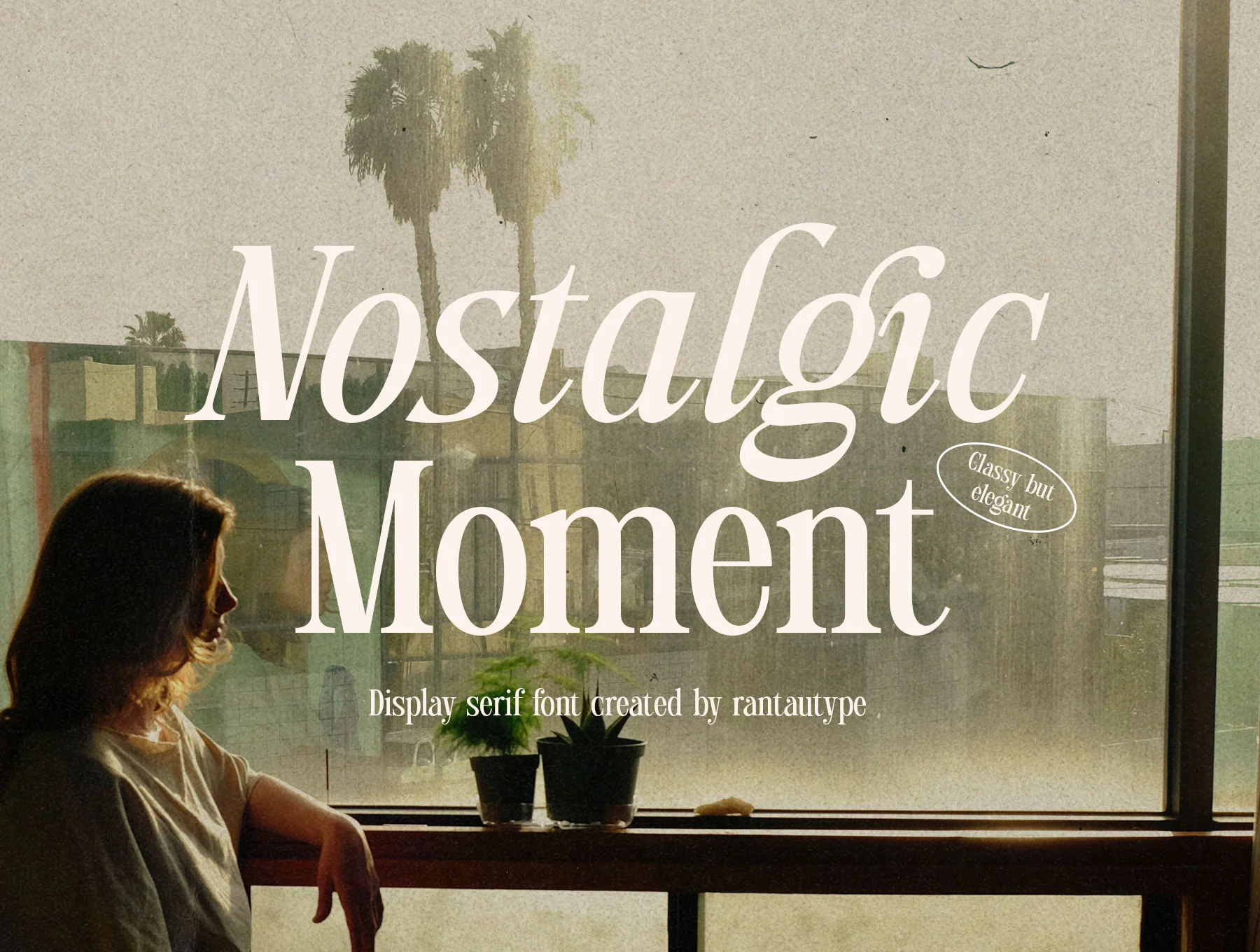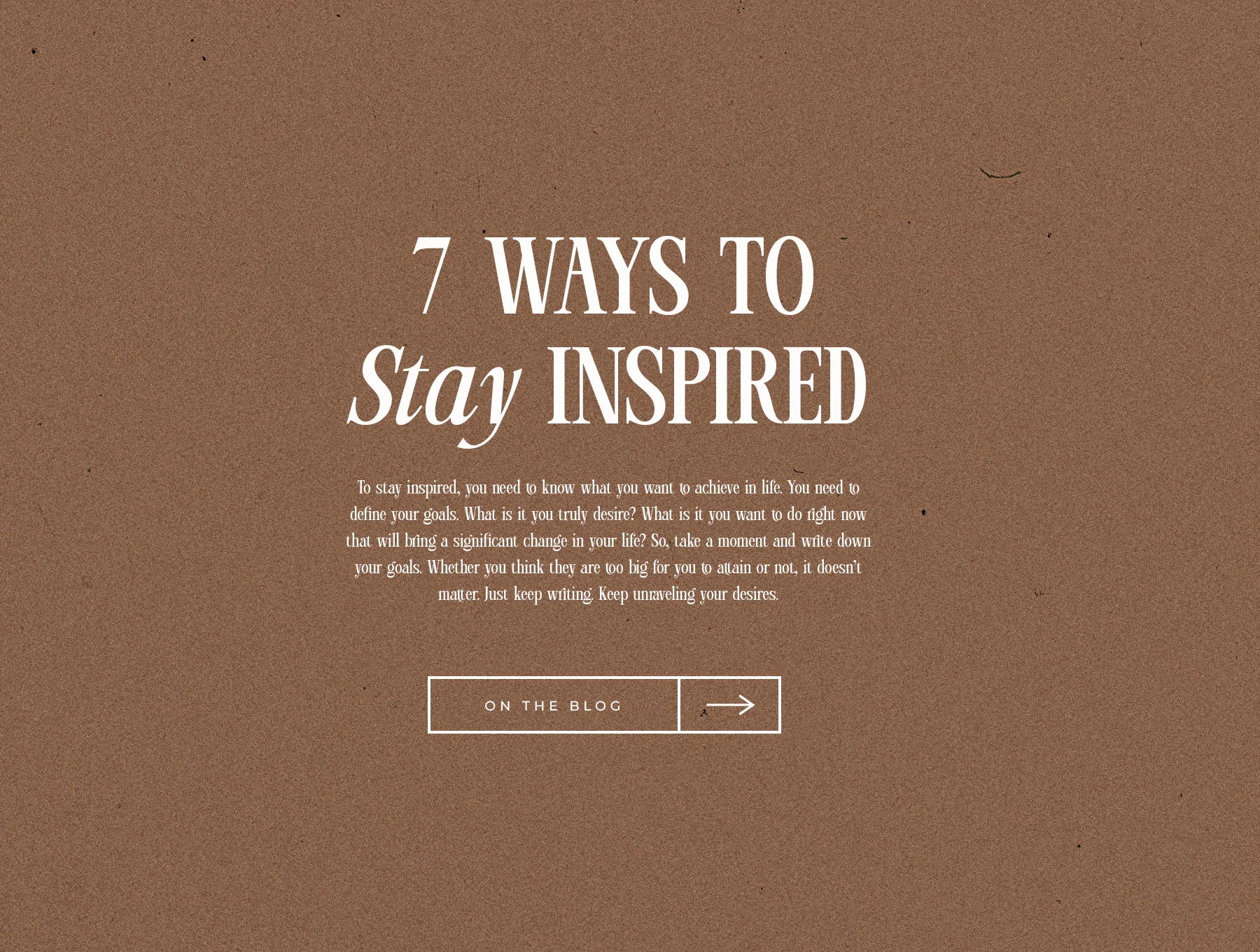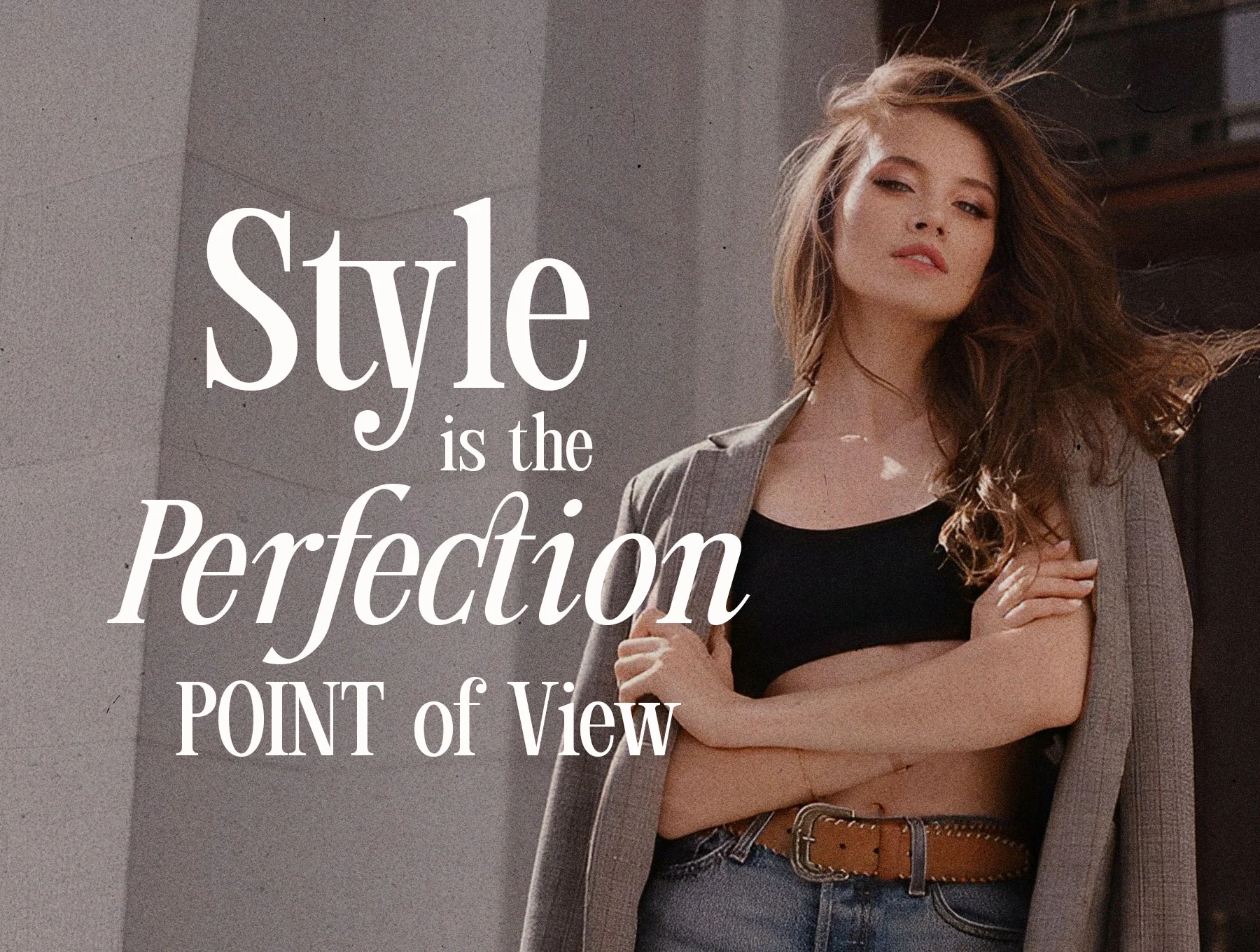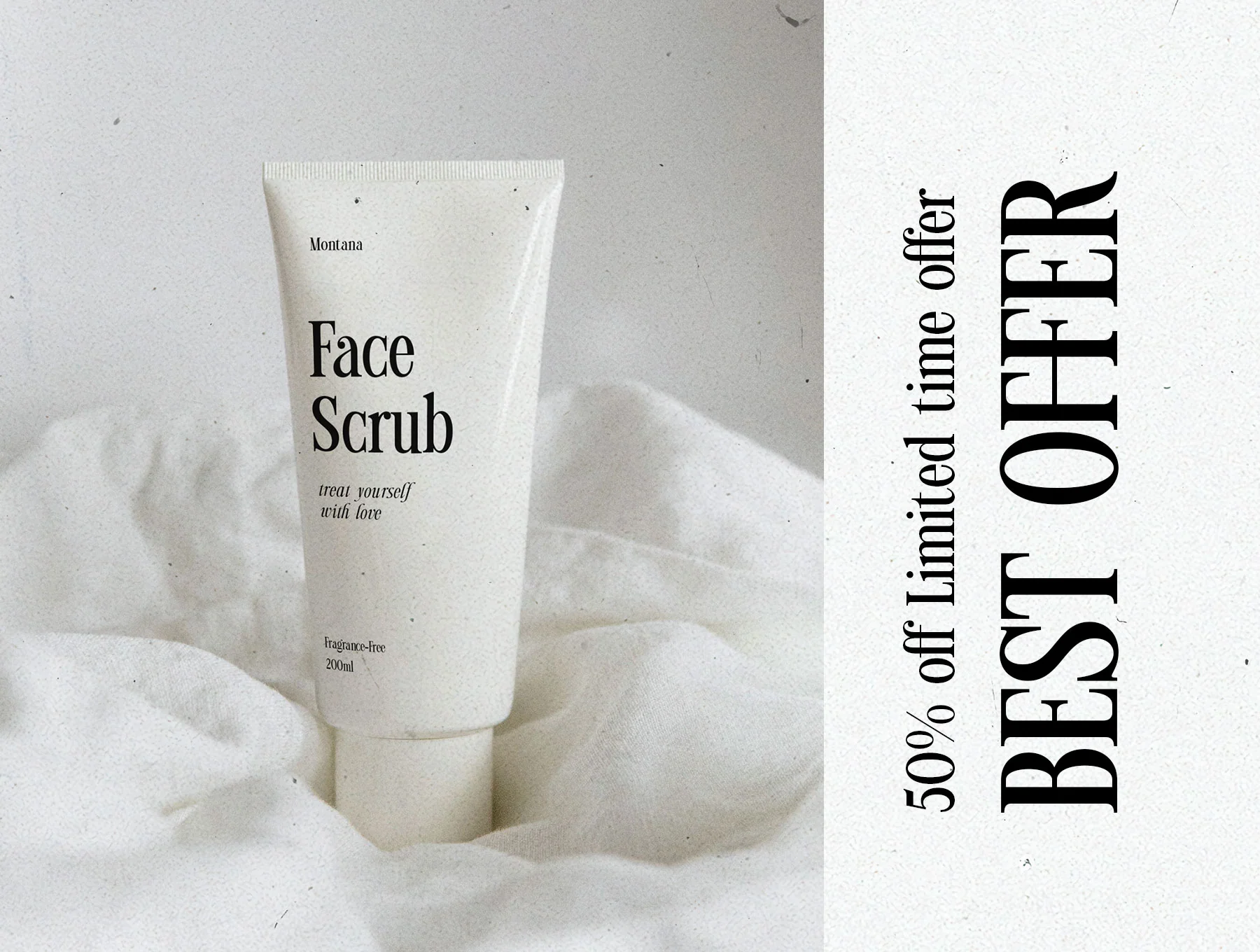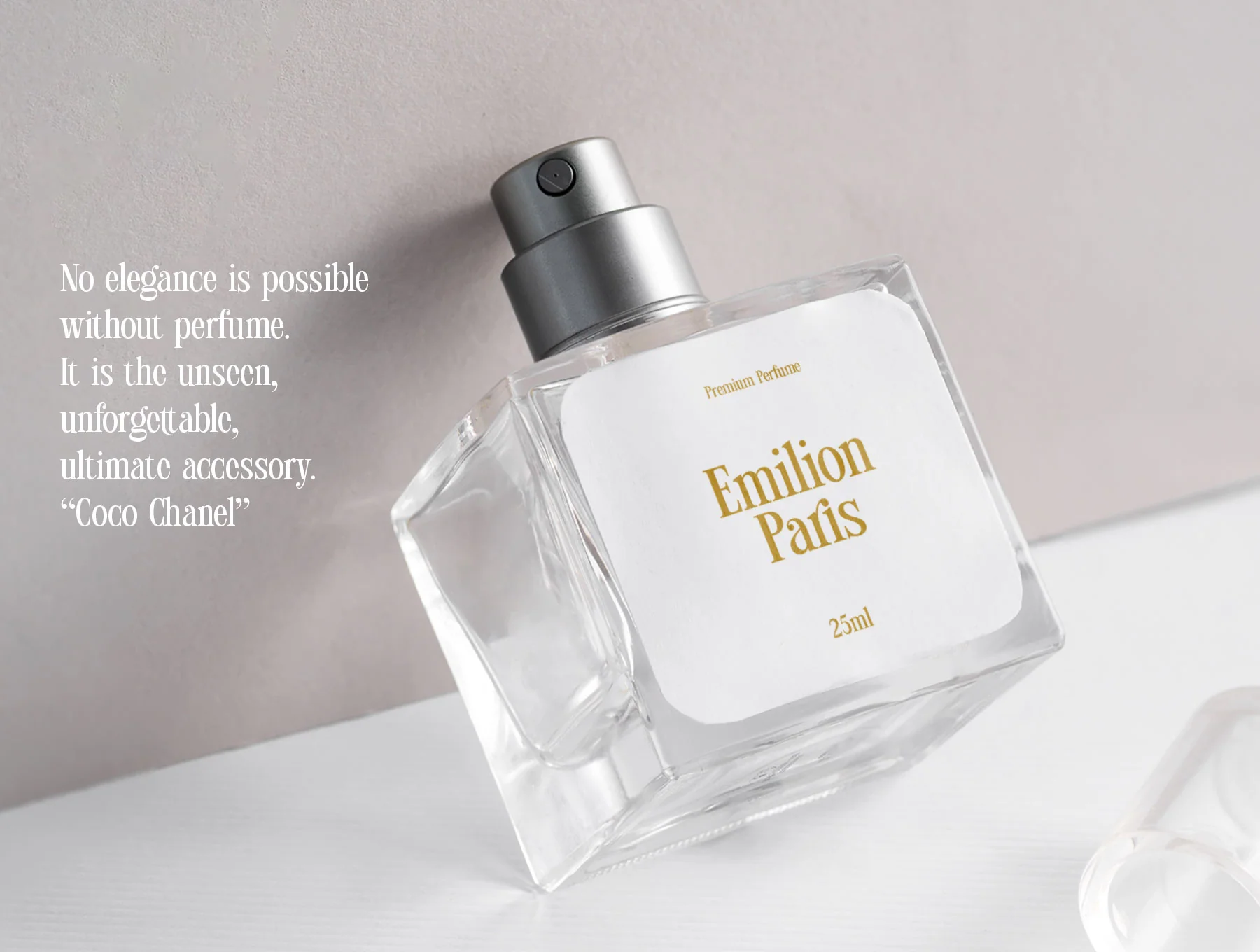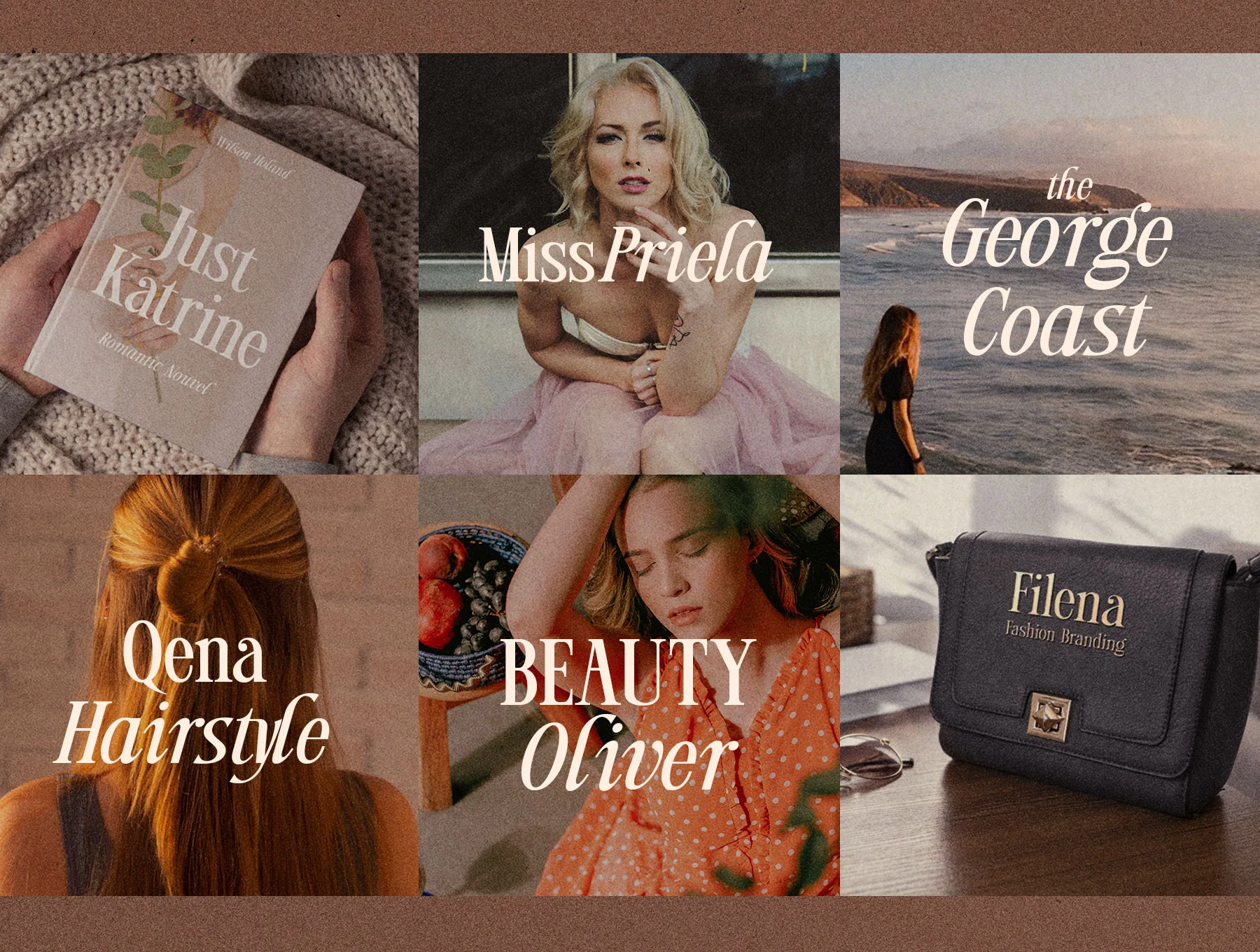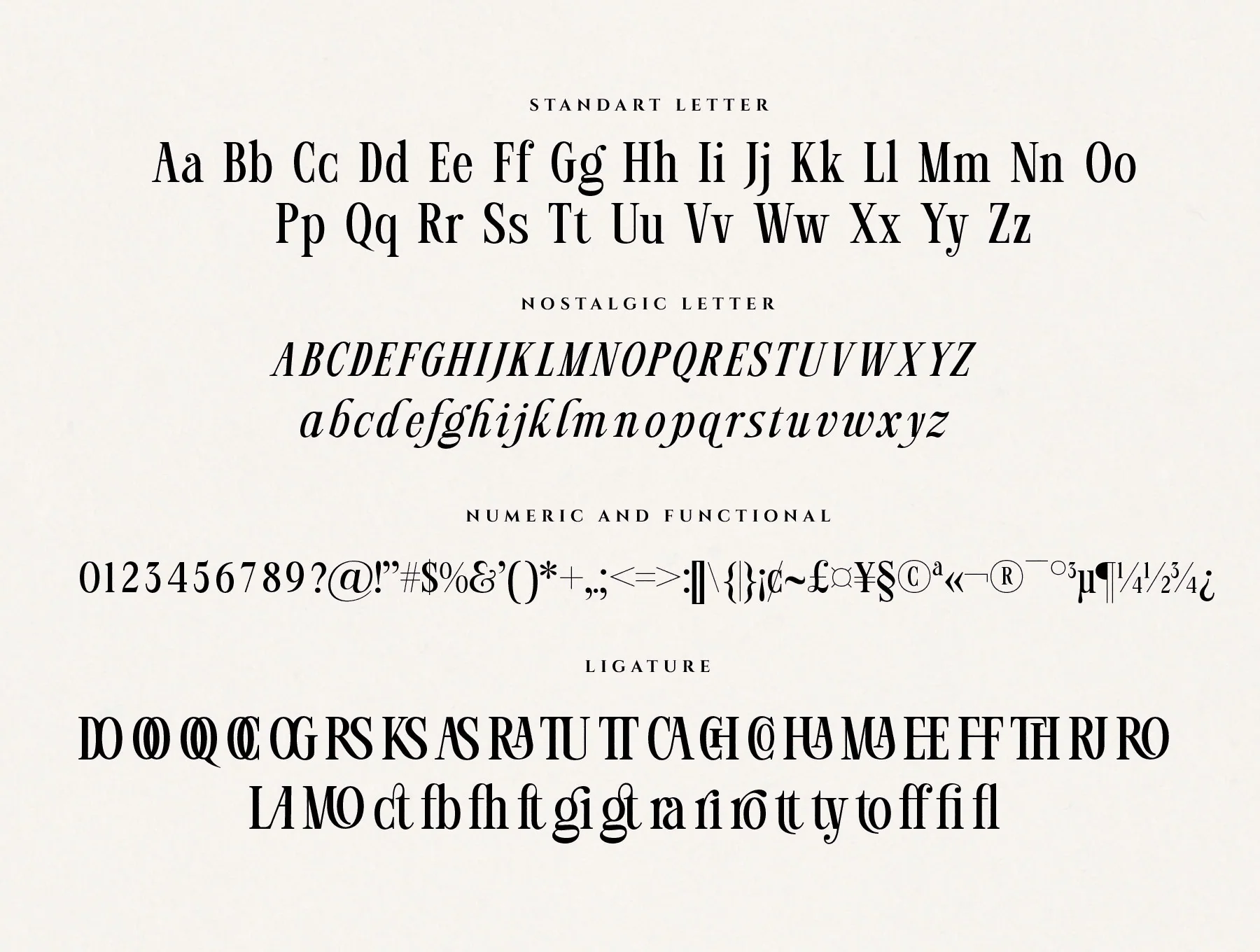
Nostalgic Moment Elegant serif font
Sophisticated yet graceful serif typeface
Standard A–Z and a–z characters
Numerals and functional symbols
Ligature support
Nostalgic Moment is an elegant serif font with glamorous 1980s magazine flair. It includes regular and italic styles in two contrast options, plus ligatures, numerals, punctuation, multilingual support, and OTF, TTF, WOFF files. Ideal for logos, titles, branding, invitations, weddings, magazines, packaging, labels, social posts, ads, quotes, photography marks, and events.